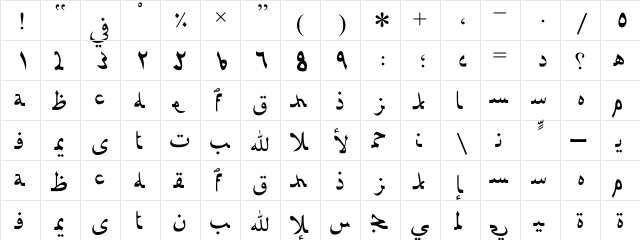
Afarat ibn Blady Regular
| Foundry | barmee.com |
| Designer | bartek nowak |
Design Context for Afarat ibn Blady Typeface
Afarat ibn Blady takes a measured approach to typography — its balanced proportions and neutral character make it a reliable workhorse for both digital and print work.